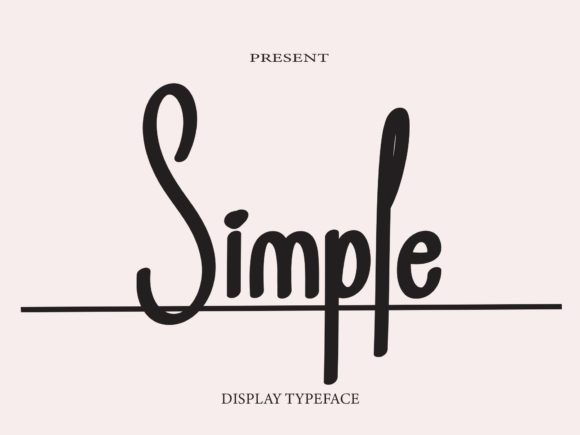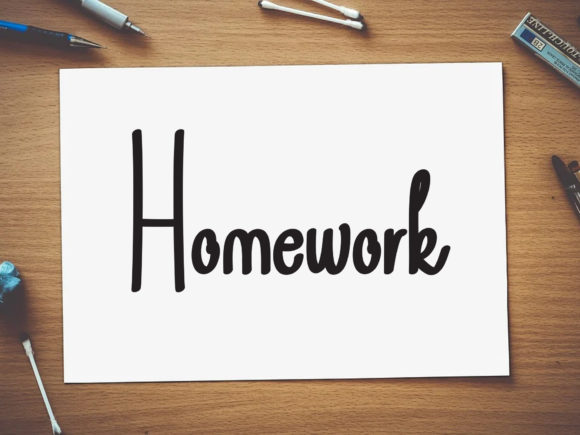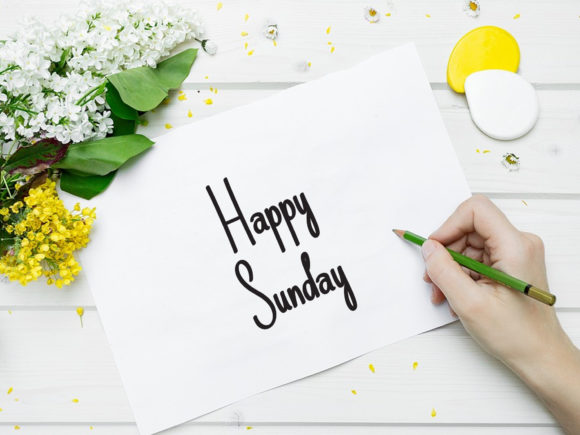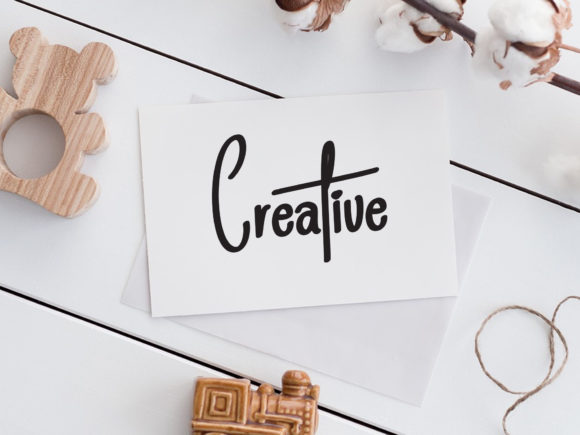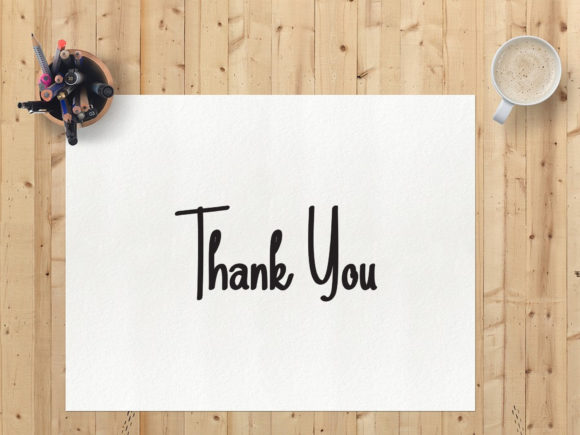
Simple Font
About Simple Font
Simple is a sweet handwritten font that is made with great care in order to produce the expected outcomes. This font can be used for writing quotes, titles, brand names, book covers, posters, or just any creation that requires a touch of joy.